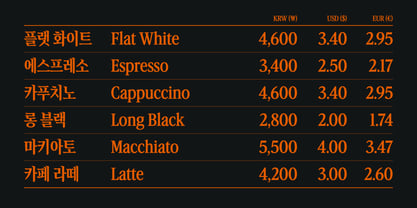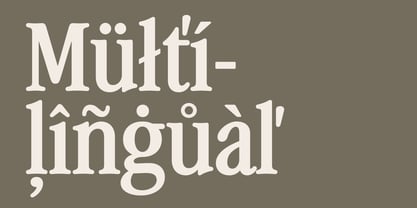
Dan Buri
by StudioJASO
Dan Buri Condensed is a serif typeface designed for display use in advertising and headlines.
Its glyphs are designed with generously sized forms that tightly fit into a condensed width, creating a compact and solid silhouette. Subtle design touches keep it from feeling overly rigid or heavy, lending a slightly casual tone that makes it suitable for a wide range of design contexts.
About StudioJASO
Independent typeface designer active in South Korea. Interested and focused on the harmonization of Latin and Korean alphabet (or Hangul) fonts.His fonts have extensive language support covering Latin and Hangul. and Each font includes: 2,000 to 3,000 Hangul syllables, the smallest unit for expressing modern Korean; Latin Basic; punctuation; symbols for Korean codepage.